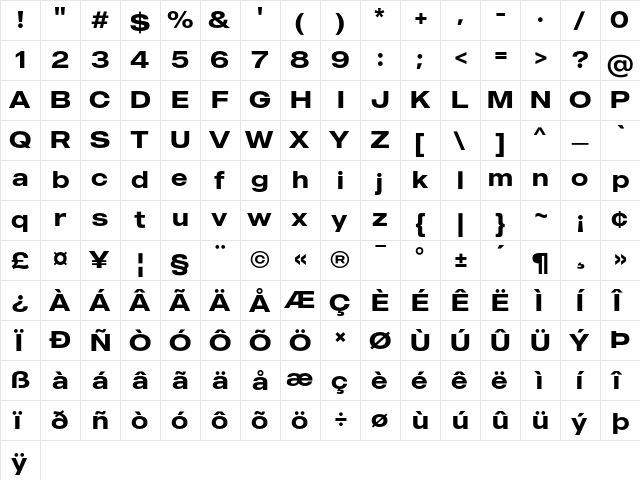
MADE Outer Sans Medium
Design Context for MADE Outer Sans Typeface
MADE Outer Sans takes a measured approach to typography — its balanced proportions and neutral character make it a reliable workhorse for both digital and print work.